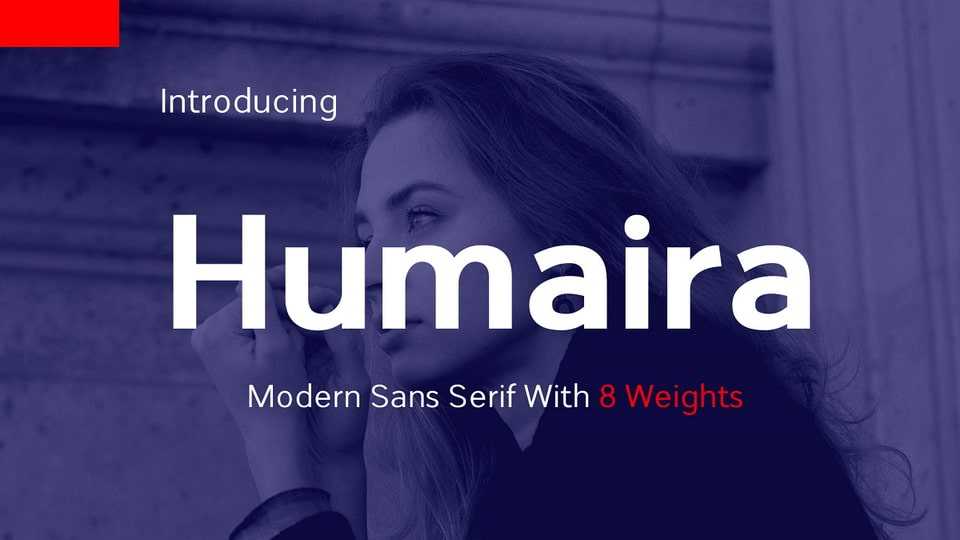
Download Humaira font, the ultimate modern sans serif typeface designed to bring sophistication and versatility to your design projects.
Designer: Mytype Studio